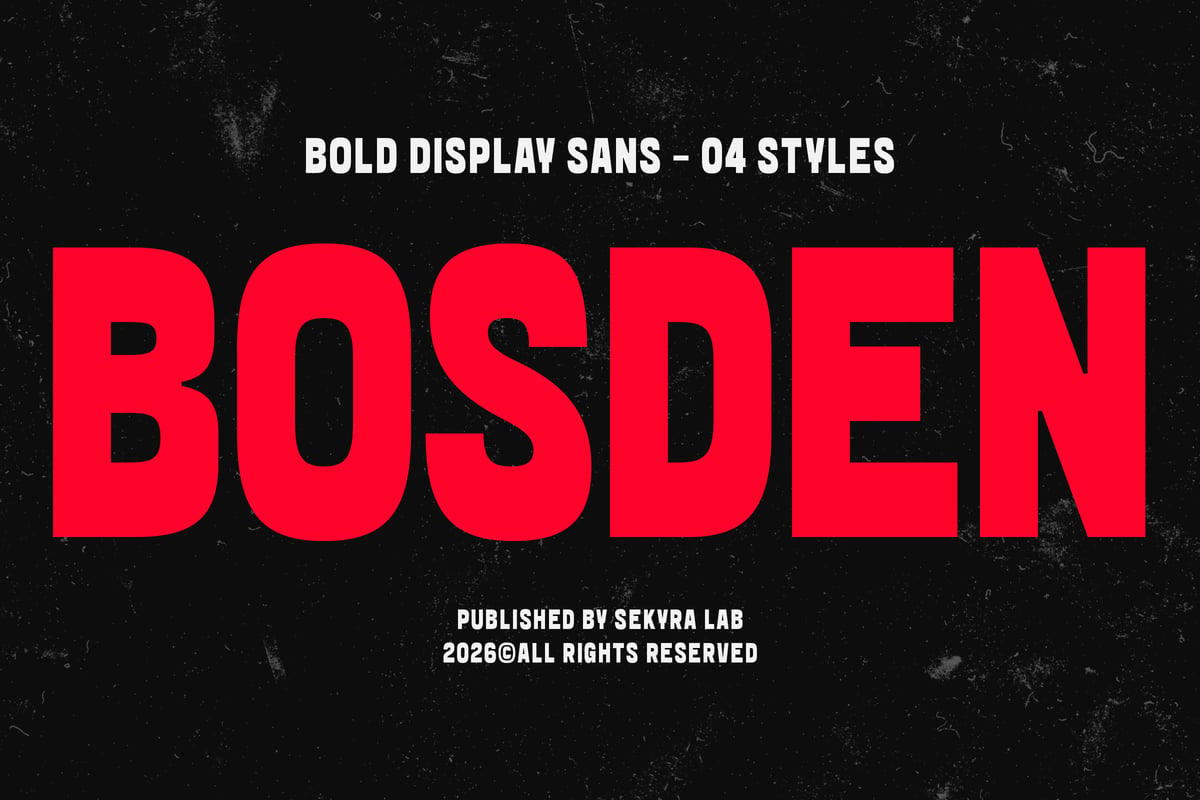
Bosden Display Font
Bosden delivers bold visual impact with condensed proportions and unapologetically strong presence for high-impact design projects.
This powerful display sans serif combines solid structure with clean geometric forms, engineered for designs that demand attention and confidence. The typeface's condensed build and expressive weight create typography that feels loud, clear, and commanding.
Bosden includes four dynamic styles that maintain consistent bold identity while exploring different visual tones: Regular for sharp solidarity, Rounded for smooth approachability, and Oblique variations that add dynamic energy to both base styles.
Perfect for poster design, brand identity, streetwear graphics, music artwork, and editorial layouts where your message needs to hit hard. The clean, modern construction paired with urban design aesthetics makes it ideal for contemporary creative projects that require strong typographic presence.
- 4 Styles (Regular, Rounded, Oblique, Rounded Oblique)